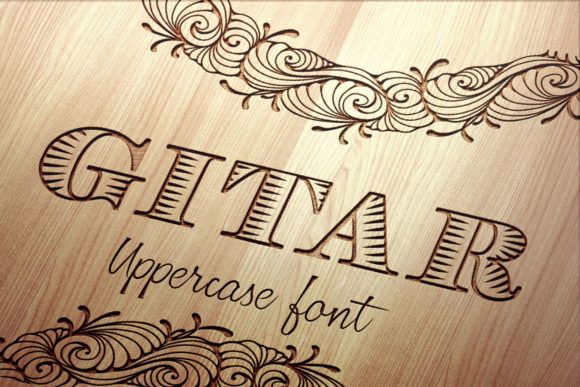
**Introducing the Exquisite Gitar Font Collection**
Immerse yourself in a world of visual artistry with the captivating Gitar font collection. Meticulously designed by the renowned Digital Typeface Studio, these decorative fonts possess an allure that transcends ordinary typography. Created with the discerning designer in mind, Gitar fonts captivate and inspire, unlocking a universe of creative possibilities.
Prepare to be mesmerized by the intricate details and sweeping elegance of each Gitar font. These fonts are not mere digital tools; they are instruments of artistic expression that ignite the imagination. Whether you're a seasoned graphic designer or a creative enthusiast, Gitar fonts will elevate your designs to new heights of sophistication and flair.
Unleash your creativity with Gitar's boundless versatility. Its enchanting curves and graceful lines lend themselves effortlessly to a myriad of design applications. From captivating logos and eye-catching headers to alluring social media graphics and enchanting invitations, Gitar fonts seamlessly adapt to your every need.
**Why Choose the Gitar Font Collection?**
In a world saturated with digital fonts, Gitar stands apart as a beacon of distinction. Its meticulous craftsmanship and captivating aesthetic set these fonts apart from the ordinary, empowering you to create designs that leave an indelible mark.
With Gitar fonts, you'll:
* **Elevate Your Designs:** Enhance your design projects with the captivating beauty of Gitar fonts, transforming ordinary text into breathtaking works of art.
* **Express Your Individuality:** Let your creativity shine through with a font collection that reflects your unique style and captivates your audience.
* **Create Lasting Impressions:** Make a statement with designs that are both visually striking and unforgettable, leaving a lasting impression on your target audience.
* **Unleash Your Potential:** Unlock your creative potential with a font collection that empowers you to explore new possibilities and push the boundaries of design.
**Experience the Enchantment of Gitar Fonts Today**